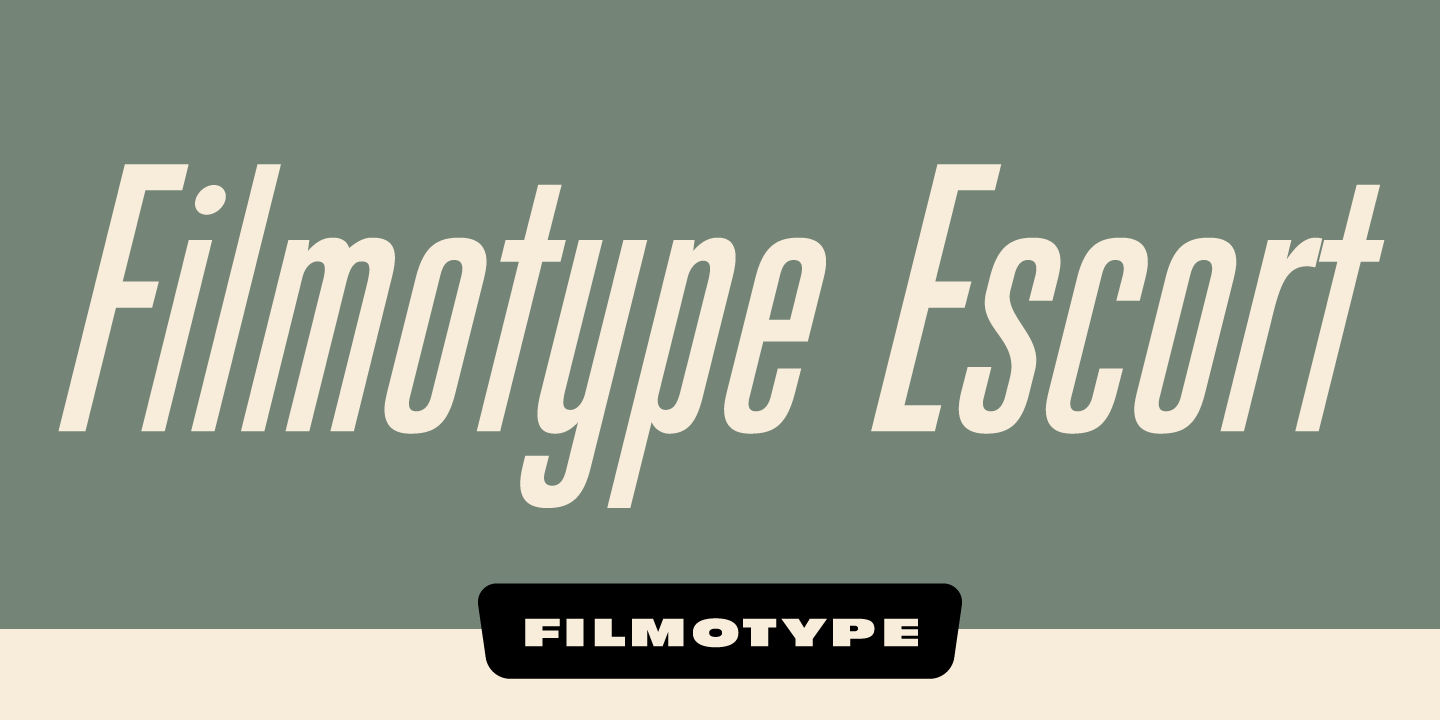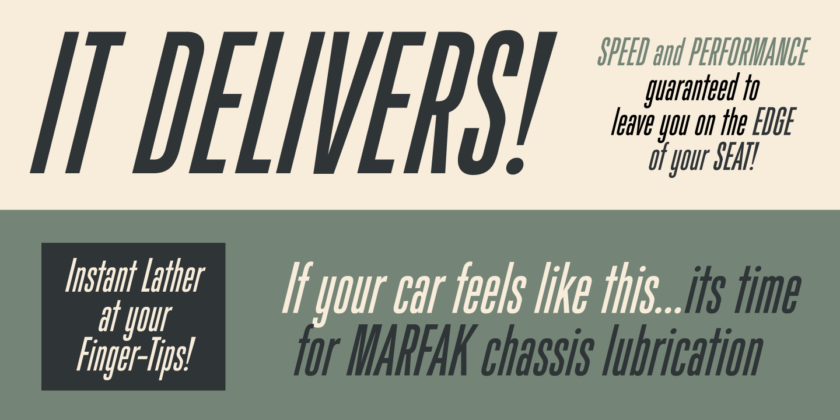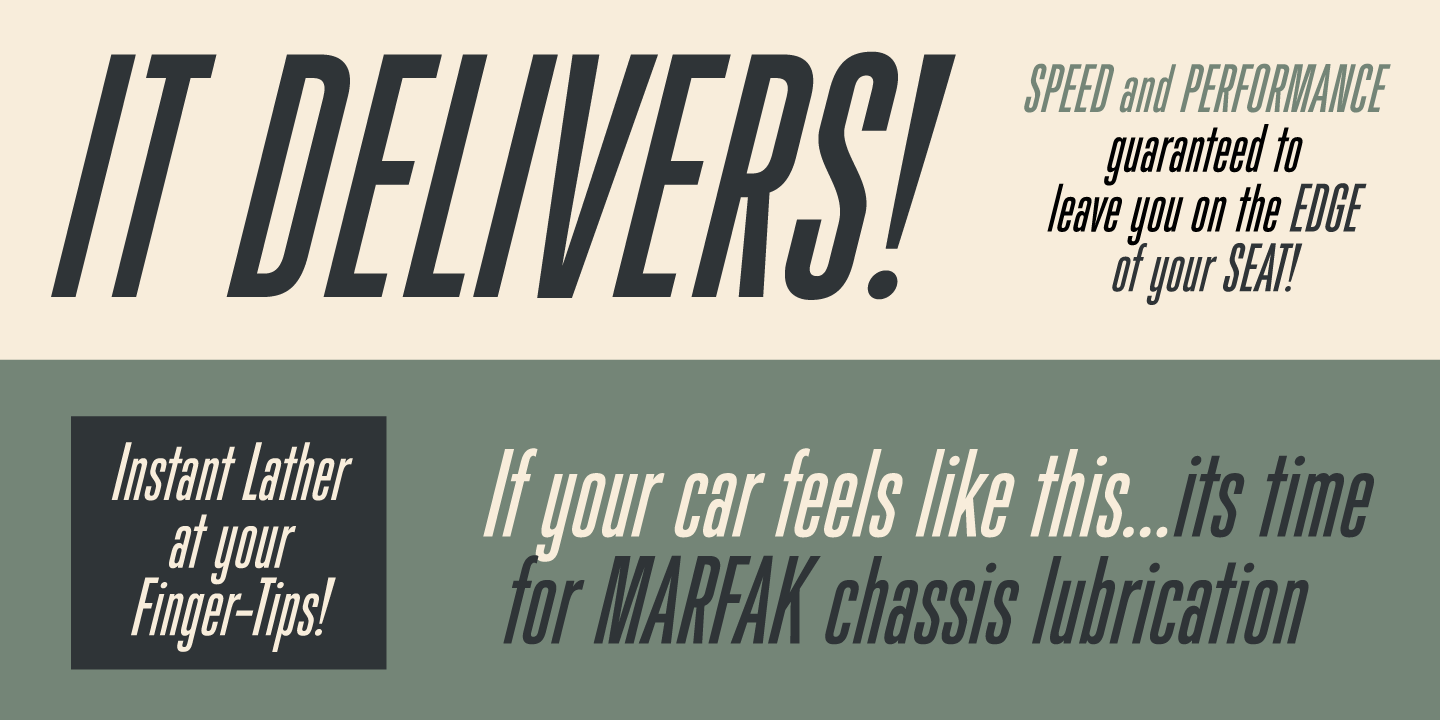
About Filmotype Escort
Initially offered in the late 1960s, Filmotype Escort was released nearly 15 years after the introduction of Filmotype Giant at the request of Filmotype customers unable to oblique the Filmotype Giant font on their Filmotype machines. Remastered and expanded…